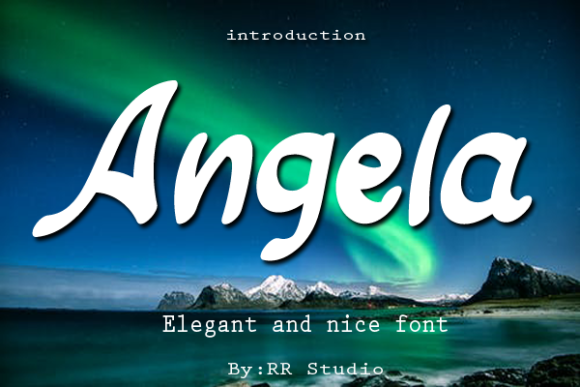
About Angela Font
Angela is a dainty handwritten font featuring a lovely flow. It looks beautiful on wedding invitations, thank you cards, quotes, greeting cards, logos, business cards and every other design which needs a customized touch.